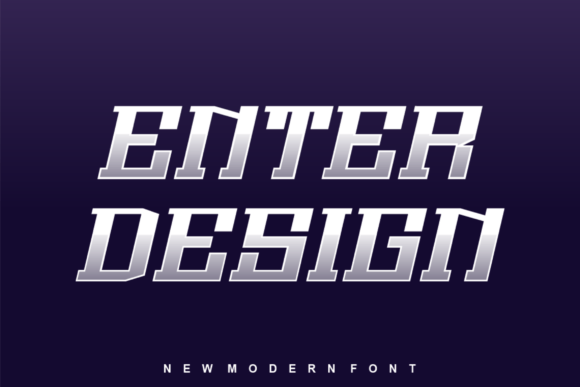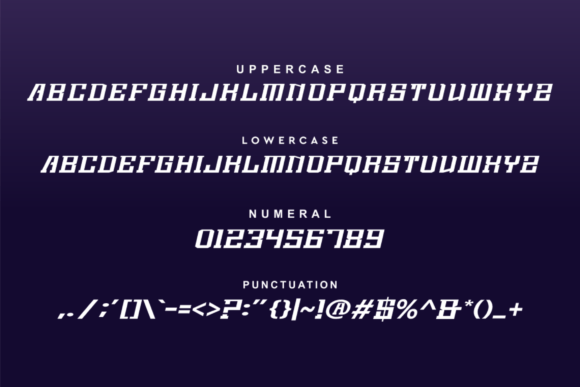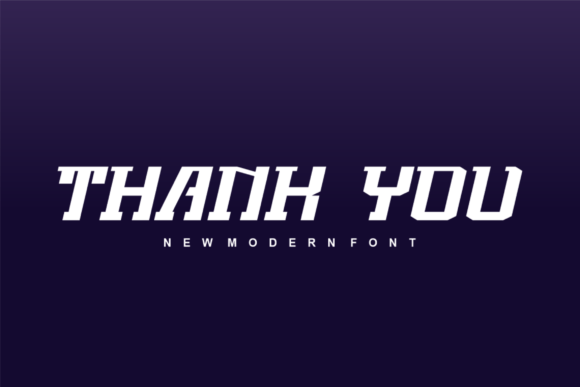
Introduction to Smaxing Font
Have you ever stared at a blank canvas, struggling to find the perfect font to bring your creative project to life? That’s a moment we’ve all been in at some point or another. But what if you could add a dash of authenticity and assertiveness to your design, making it stand out in a crowded space? Enter the Smaxing Font, a modern and bold display font that’s about to revolutionize the way you think about typography.
As a designer, you’re always on the lookout for high-quality design resources that can elevate your work and take it to the next level. The Smaxing Font is exactly that – a versatile and powerful tool that’s perfect for a wide range of creative projects, from branding and advertising to digital art and graphic design.
With its transparent background and sleek, modern aesthetic, the Smaxing Font is a must-have for any designer looking to add a touch of sophistication and style to their work. And the best part? It’s available for free download, making it an accessible and valuable resource for designers of all levels.
Key Features of Smaxing Font
- High-quality, scalable vector graphics for a clear and crisp display in various sizes and resolutions.
- Transparent background, allowing for seamless integration with any design or creative project.
- Includes a comprehensive character set, covering a wide range of languages and characters.
- Designed with precision and attention to detail, ensuring a polished and professional look for any creative project.
- Perfect for graphic designers, digital artists, and anyone seeking a high-quality, versatile font for their next project.
Honest Review: Smaxing Font
I recently had the chance to work with the Smaxing Font, and I must say, it’s been a great addition to my design resource library. The font is free to download, which is always a plus for creative projects on a budget.
- ✨ High-quality typography: The Smaxing Font features crisp, clean lines and a modern aesthetic that’s perfect for contemporary design projects.
- ✨ Transparent background: The font’s transparent background makes it easy to use as a overlay or to create a sense of depth in your designs.
However, I did encounter a few limitations when using the Smaxing Font.
- ⚠️ Limited font variations: While the font itself is high quality, there are only a few variations available, which may limit its versatility for certain design projects.
- ⚠️ Not suitable for small text: Due to its modern design, the Smaxing Font may not be the best choice for small text or body copy, as it can be difficult to read at smaller sizes.
Overall, I’m impressed with the Smaxing Font and would recommend it to designers looking for a high-quality, modern font for their creative projects. With a little creativity, its limitations can be overcome, and it can be a valuable addition to any design resource library.
Tips for Getting the Most Out of Smaxing Font
Use Smaxing Font on a transparent background to create a seamless design. Experiment with different font sizes and colors to add visual interest to your creative project.
Smaxing Font is ideal for creative projects, such as logos, brochures, and social media graphics. Its high-quality design and transparent background make it a valuable design resource.